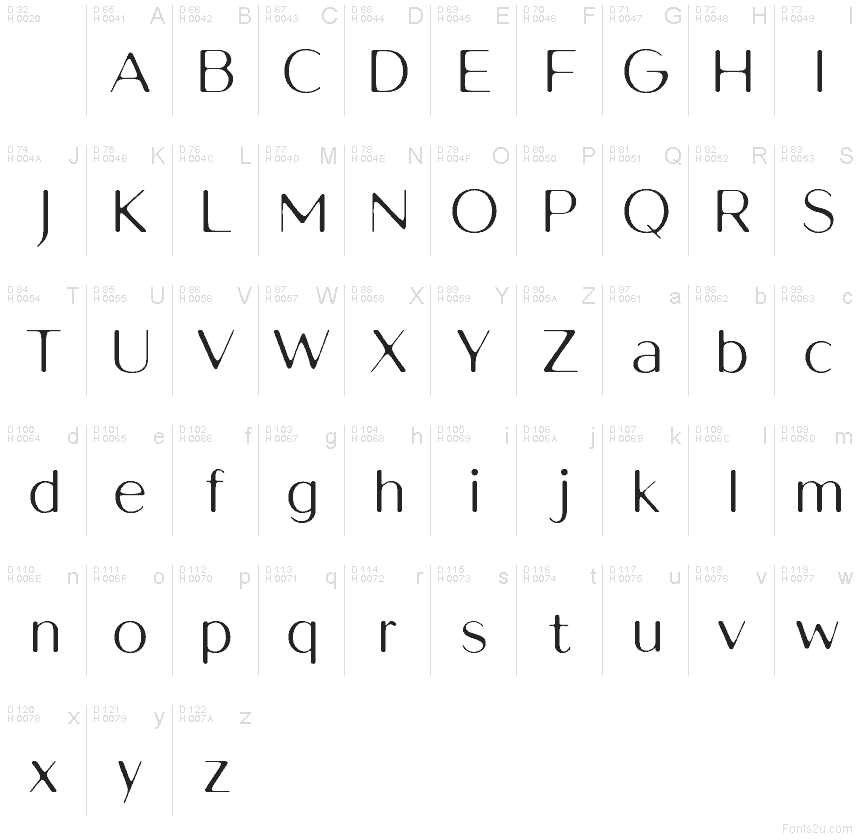
MikeaRoundedDrawn-Regular Demo
Mikea Rounded Drawn font by Craft Supply Co. is a modern display sans serif with clean lines and a touch of artistry. This minimalist masterpiece combines contemporary vibes with an artistic flair for aesthetically pleasing designs that turn heads. It is elegant, with every letter incorporating light curves, optimal space, and exceptional readability.